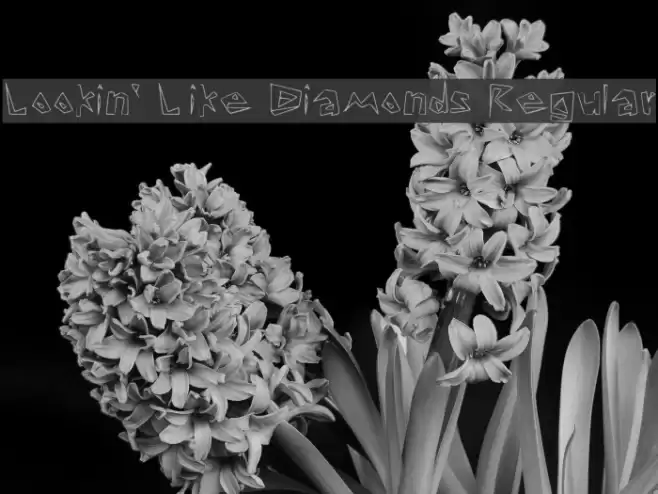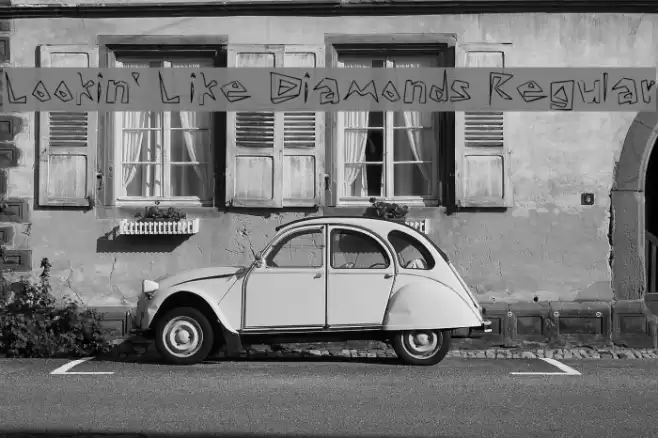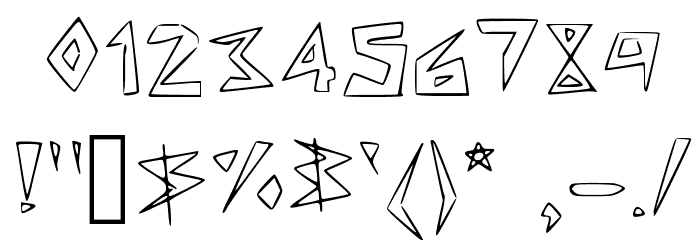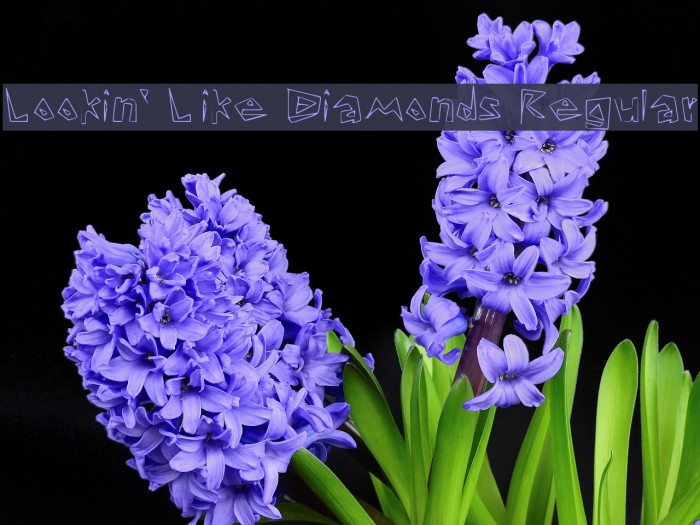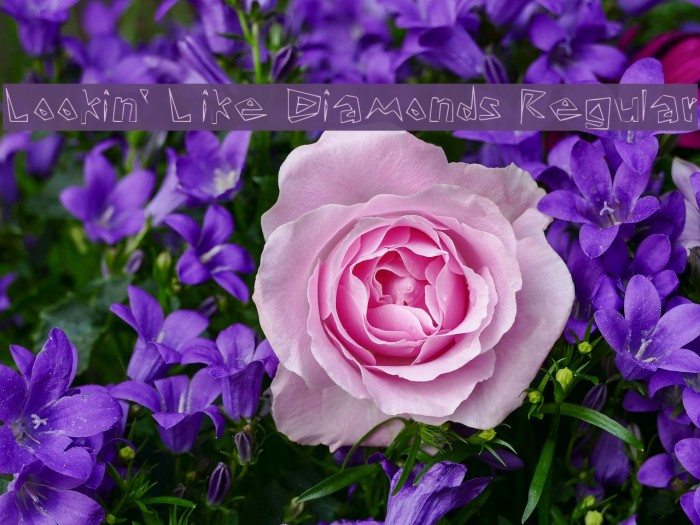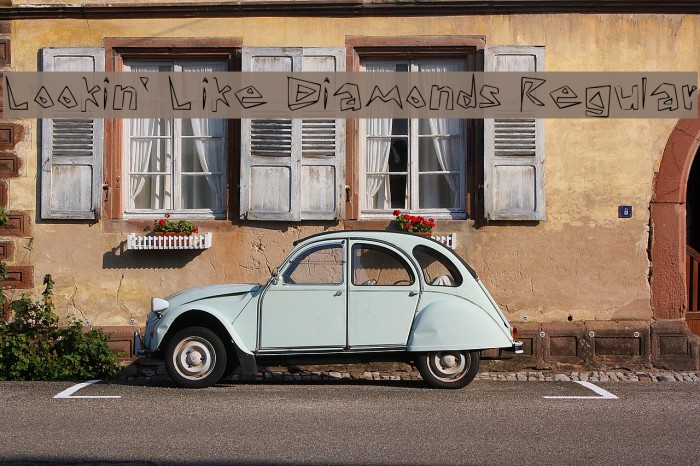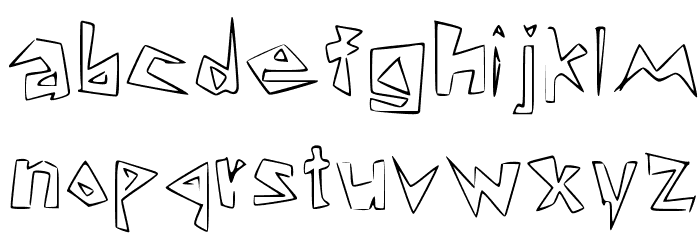
Lookin' Like Diamonds Regular Font
Lookin' Like Diamonds Regular Description
This font features a highly stylized and angular design, reminiscent of geometric shapes and sharp edges. Each character is uniquely crafted with a sense of dynamism and movement, making it stand out with its bold and edgy appearance. The uppercase and lowercase letters maintain a consistent style, with exaggerated angles and points that create a sense of energy and modernity. The numbers and special characters follow the same design principles, ensuring a cohesive look across all glyphs. This font is ideal for projects that require a striking and unconventional aesthetic, capturing attention with its distinctive and artistic flair.
A bold, angular font with a dynamic and edgy design from Distorted Eroded fonts.
- Proposed Projects: Ideal for album covers, posters, branding for edgy or modern products, and any project needing a standout, artistic typeface.